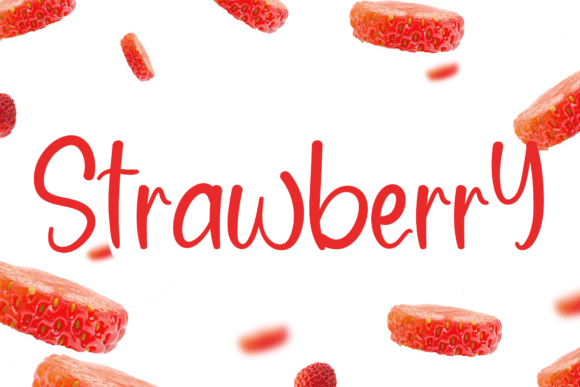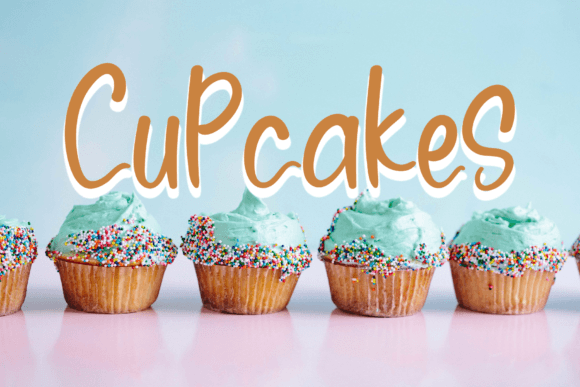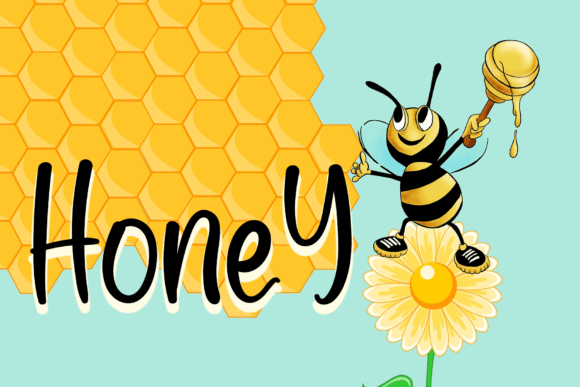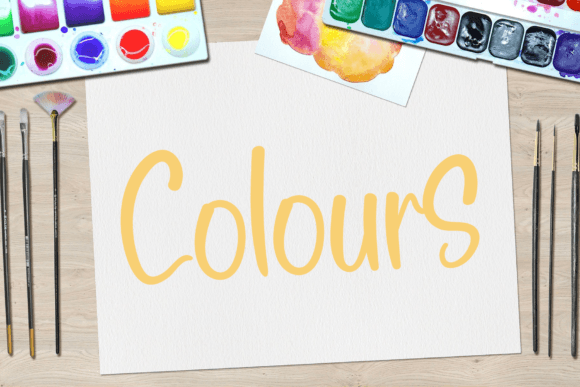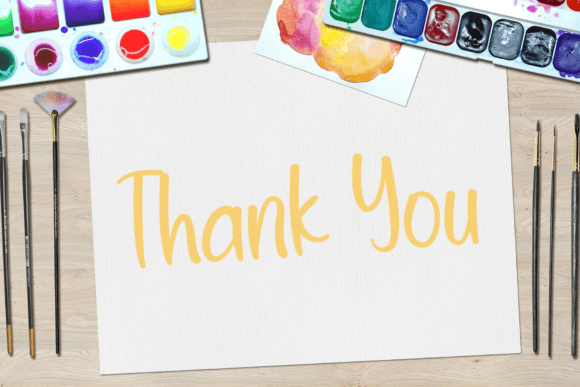
Matcha Font
The Matcha Font Download is a fun and casual handwritten script designed to bring energy, charm, and creativity to your projects. With its natural handwritten strokes and versatile structure, this font works across both personal and professional designs. Whether you are designing invitations, posters, or logos, Matcha delivers a joyful and approachable personality.
A Casual Handwritten Script with Playful Style
Matcha combines a modern handwritten look with casual elegance. Unlike stiff or overly formal fonts, this Matcha script font feels approachable, stylish, and versatile. As a result, it is an excellent option for projects that require both clarity and character.
Personal designs and event stationery are always enhanced by handwritten fonts. The Matcha Font is ideal for wedding invitations, birthday cards, thank you notes, and seasonal greetings. Moreover, its fun and casual rhythm ensures your designs feel authentic and lively.
Branding and Logo Design with Matcha Font
Typography is central to brand identity. The Matcha handwritten font is a great choice for boutique logos, product packaging, and creative promotional campaigns. In addition, its playful yet professional tone makes brands appear friendly and modern.
Posters, Titles, and Creative Displays
The Matcha Font Download adapts perfectly to posters, banners, and magazine covers. Therefore, it performs well in both small and large-scale designs, maintaining readability while keeping its casual handwritten charm.
In digital spaces, fonts must grab attention instantly. The Matcha typeface integrates seamlessly into Instagram posts, YouTube thumbnails, Pinterest graphics, and blogs. Its fun handwritten strokes ensure your content looks both stylish and engaging.
Why Designers Choose Matcha Typeface
Designers love fonts that combine personality with practicality. Many handwritten fonts can be too plain or overly decorative, but the Matcha handwritten script strikes the right balance. It stays legible while keeping its fun, casual style. This makes it a reliable tool for professionals and hobbyists alike.